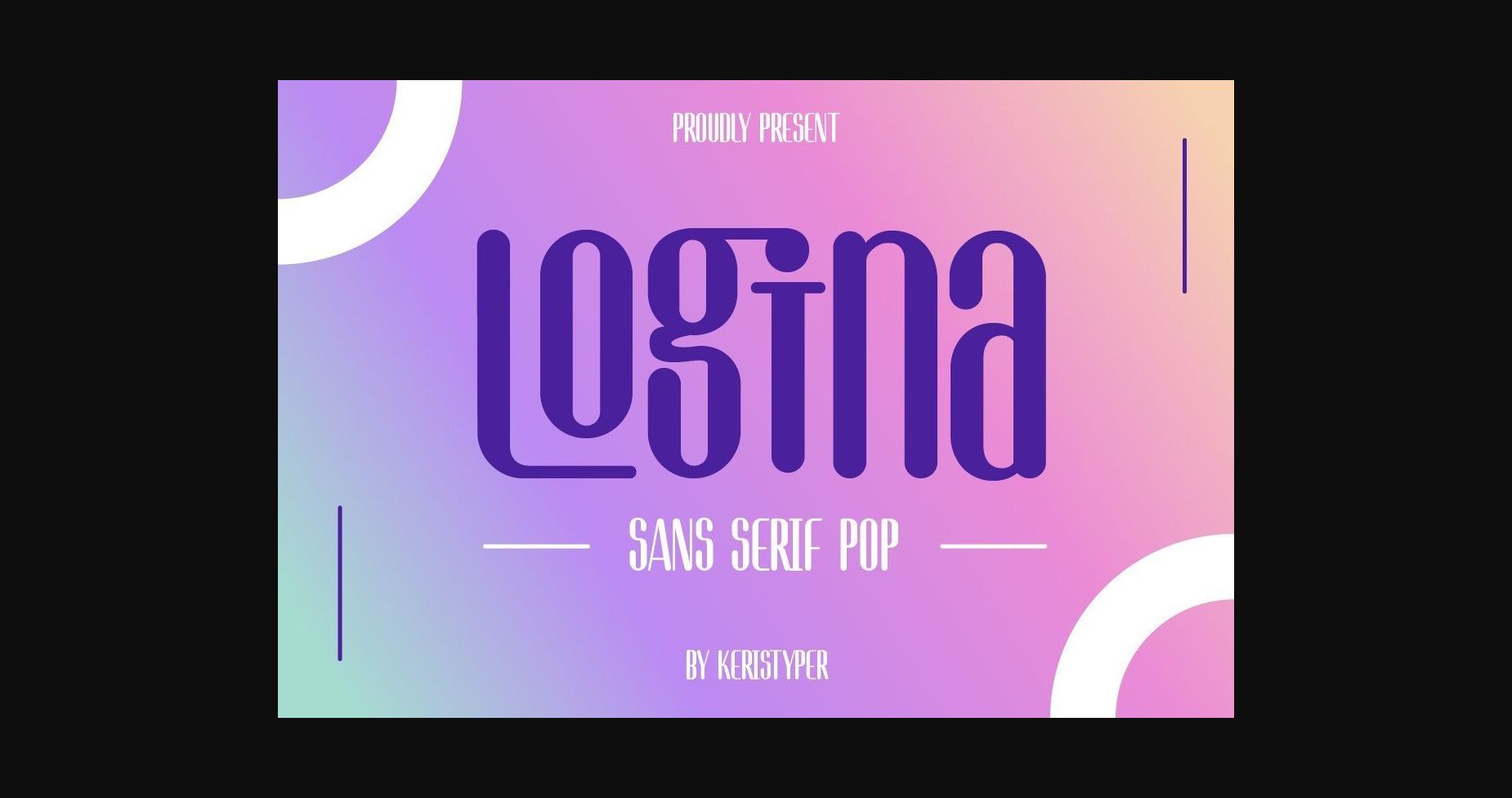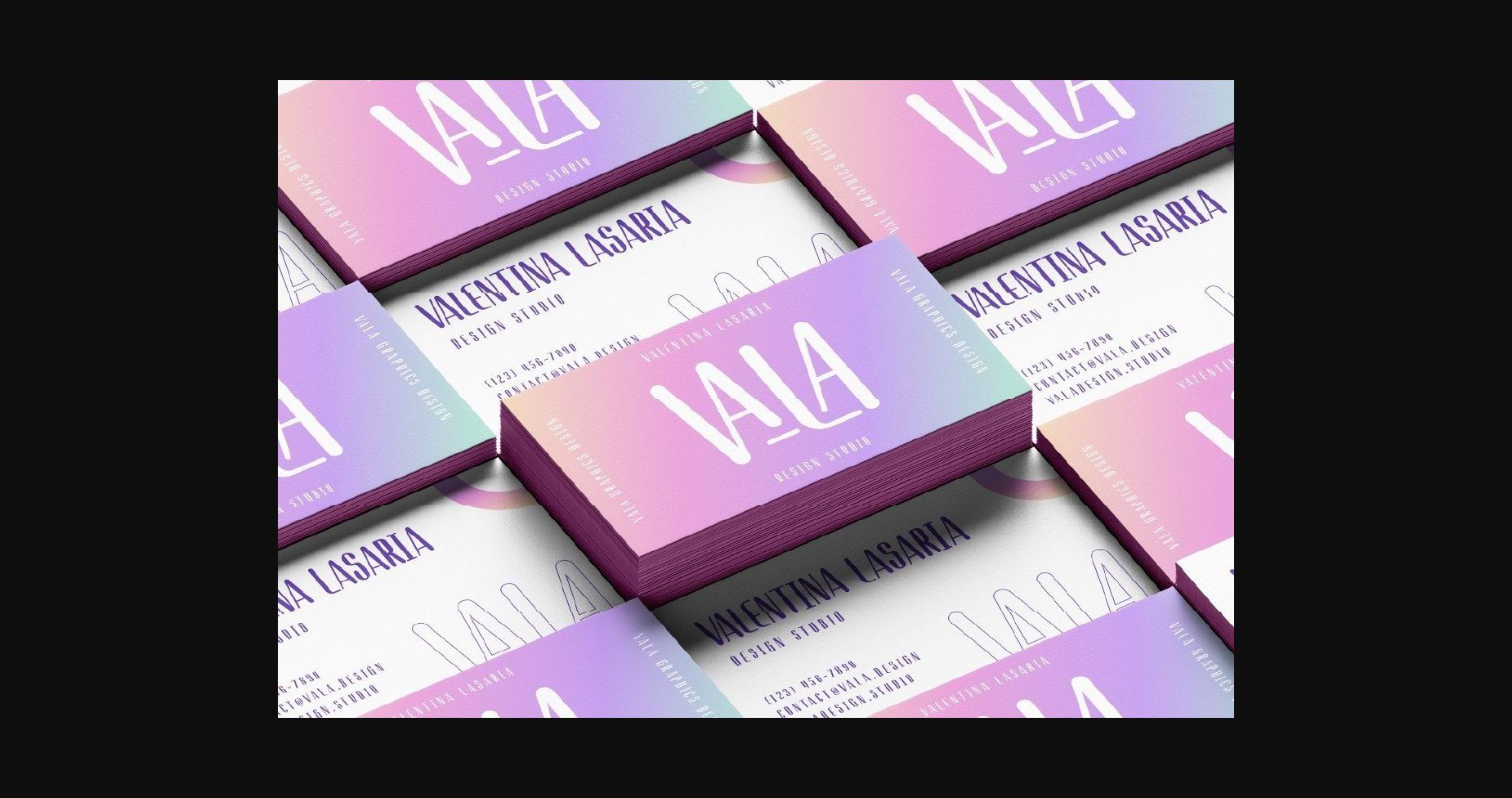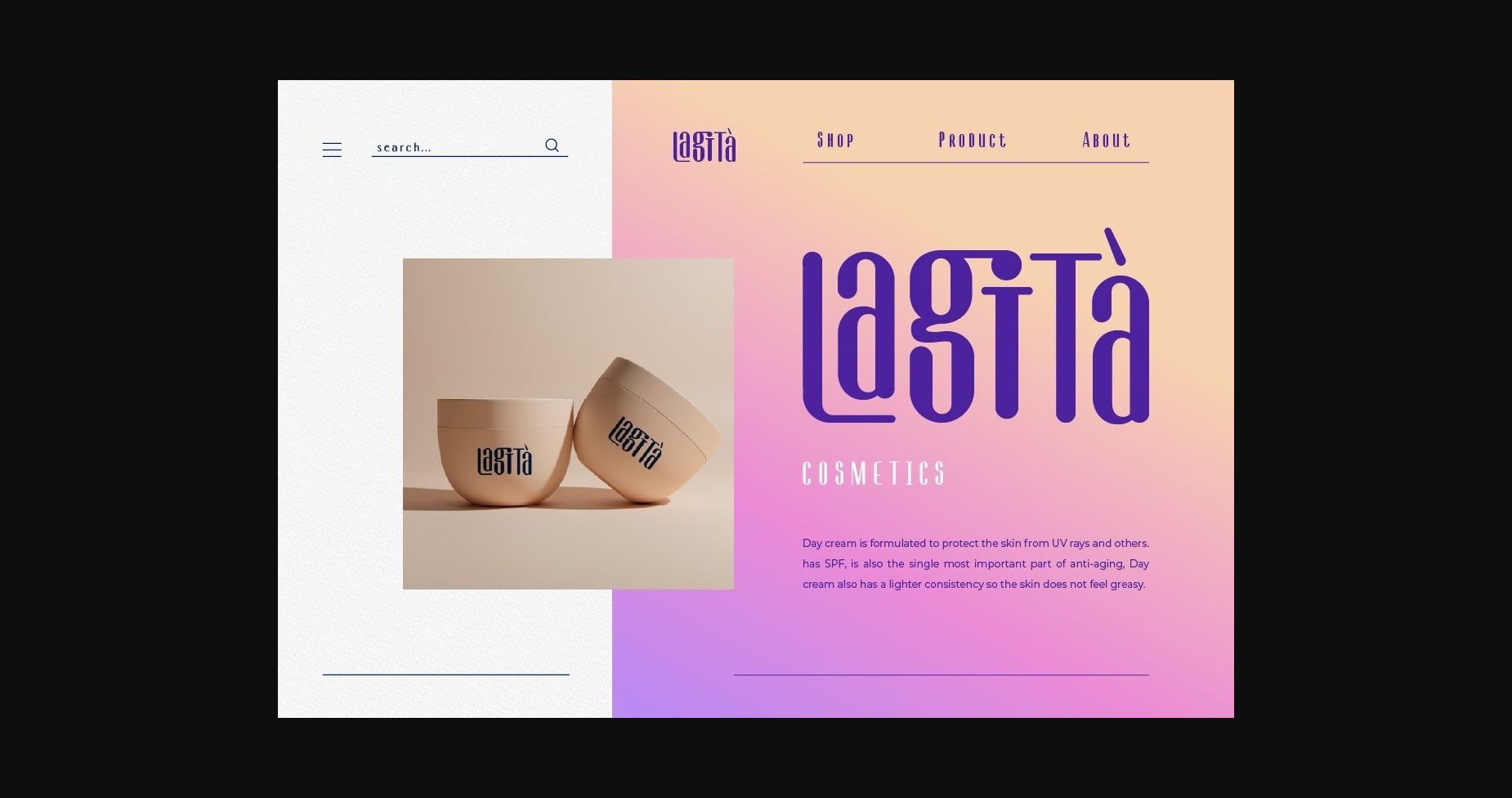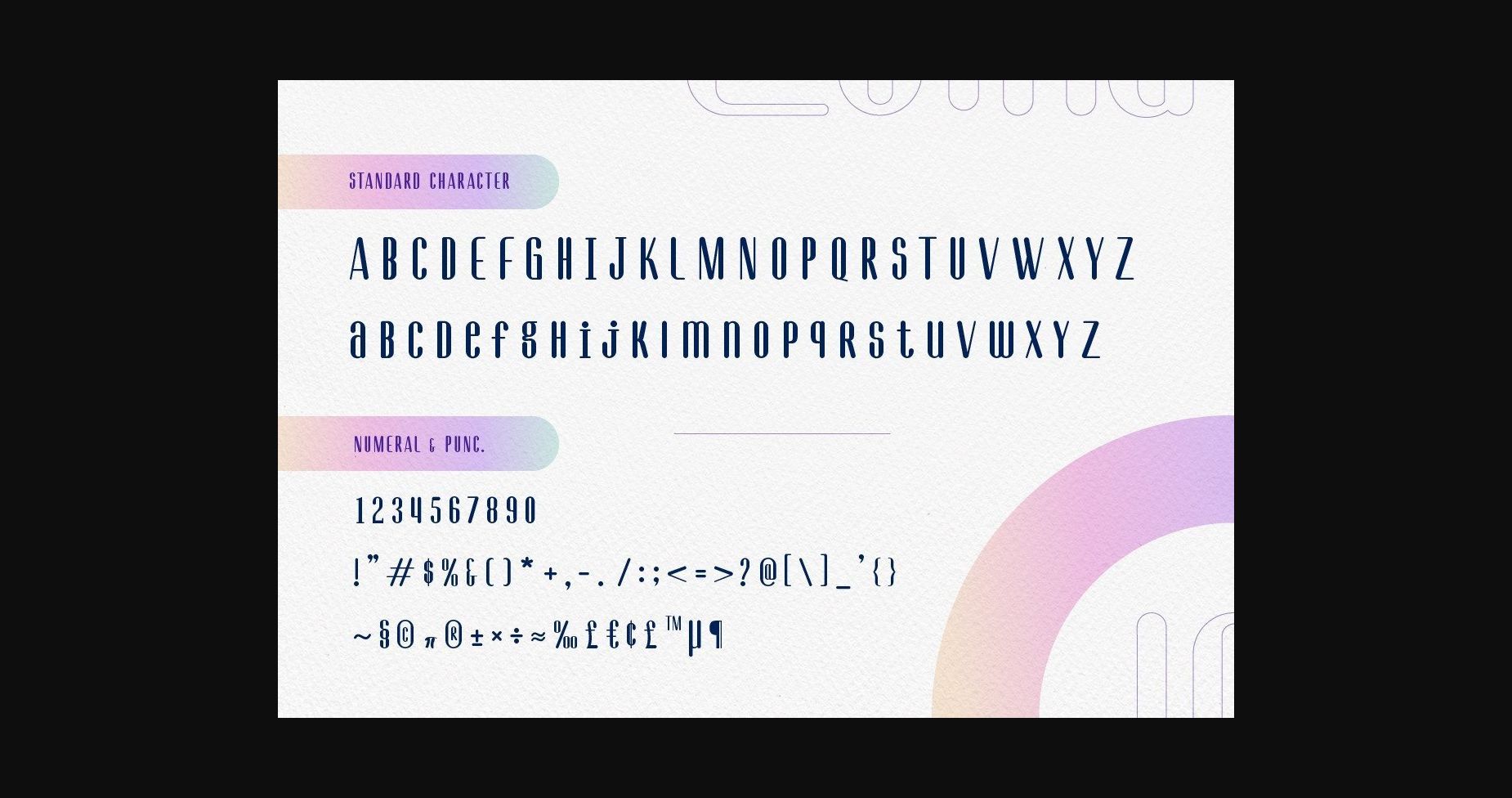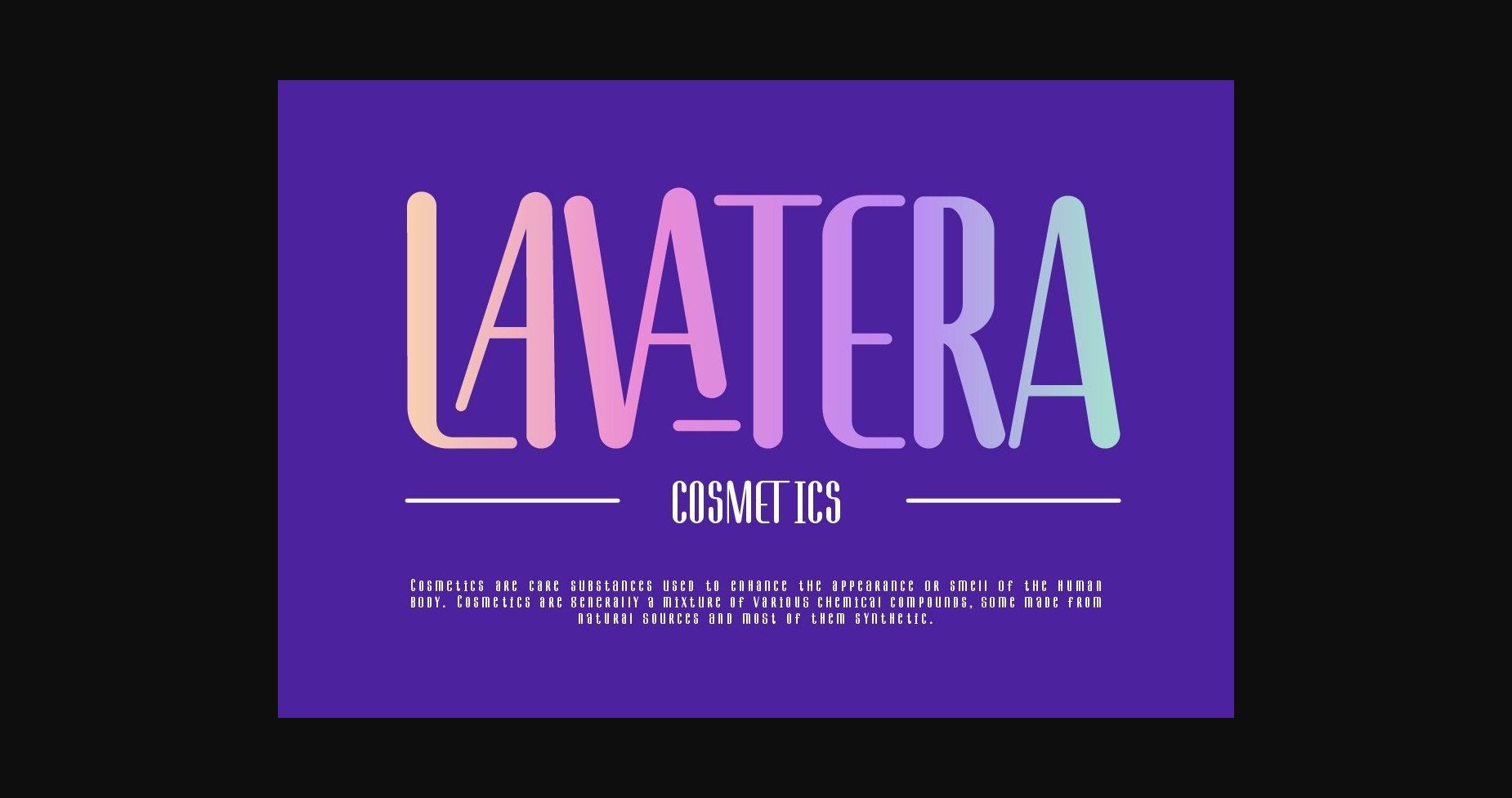
About Logina Font
Logina, a modern clean typeface, it’s a fresh look with a nice perfect rounded shape. This font is good for logo design, Social media, Movie Titles, Books Titles, short text even long text letters, and good for your secondary text font with sans or serif.